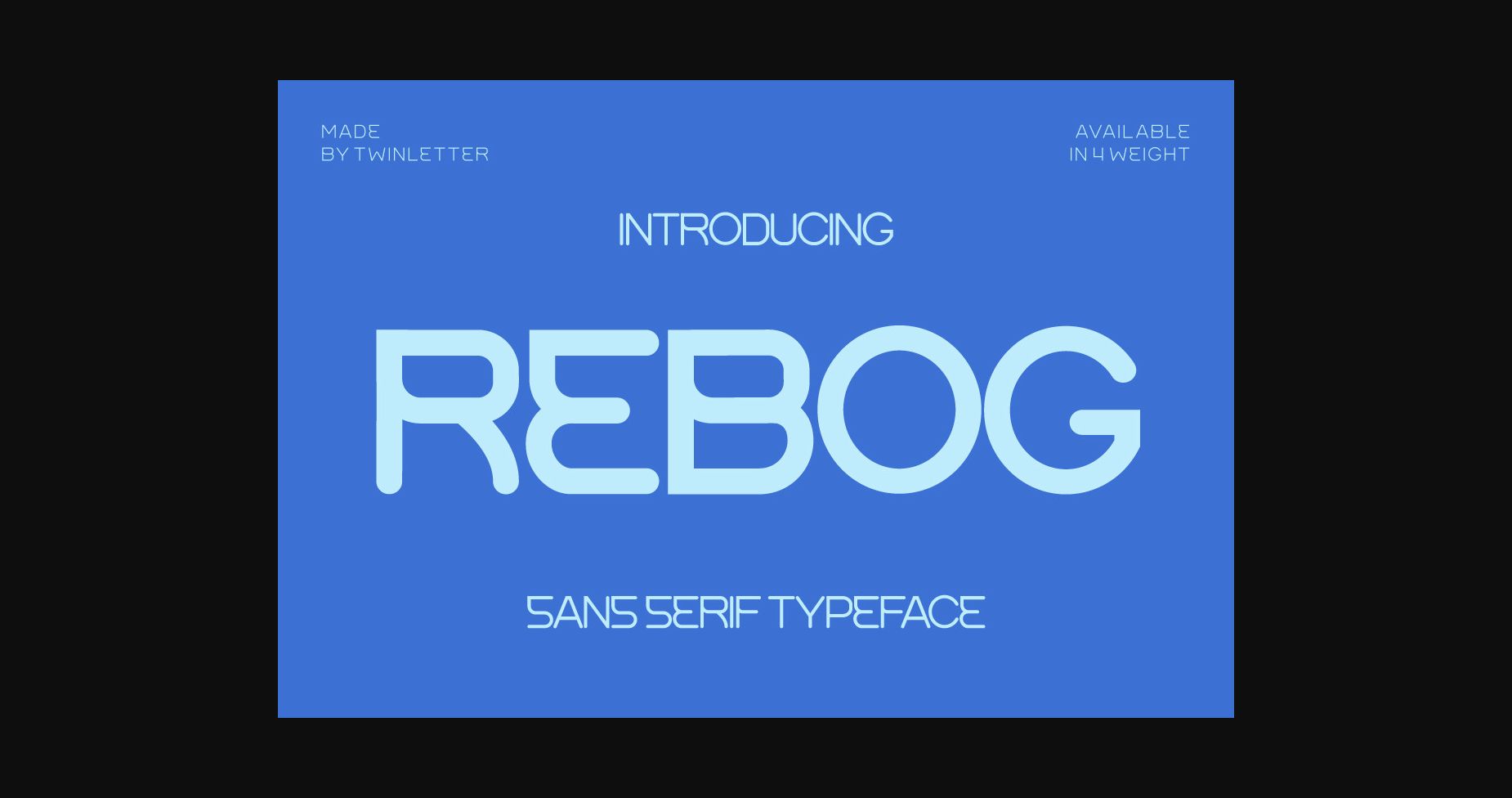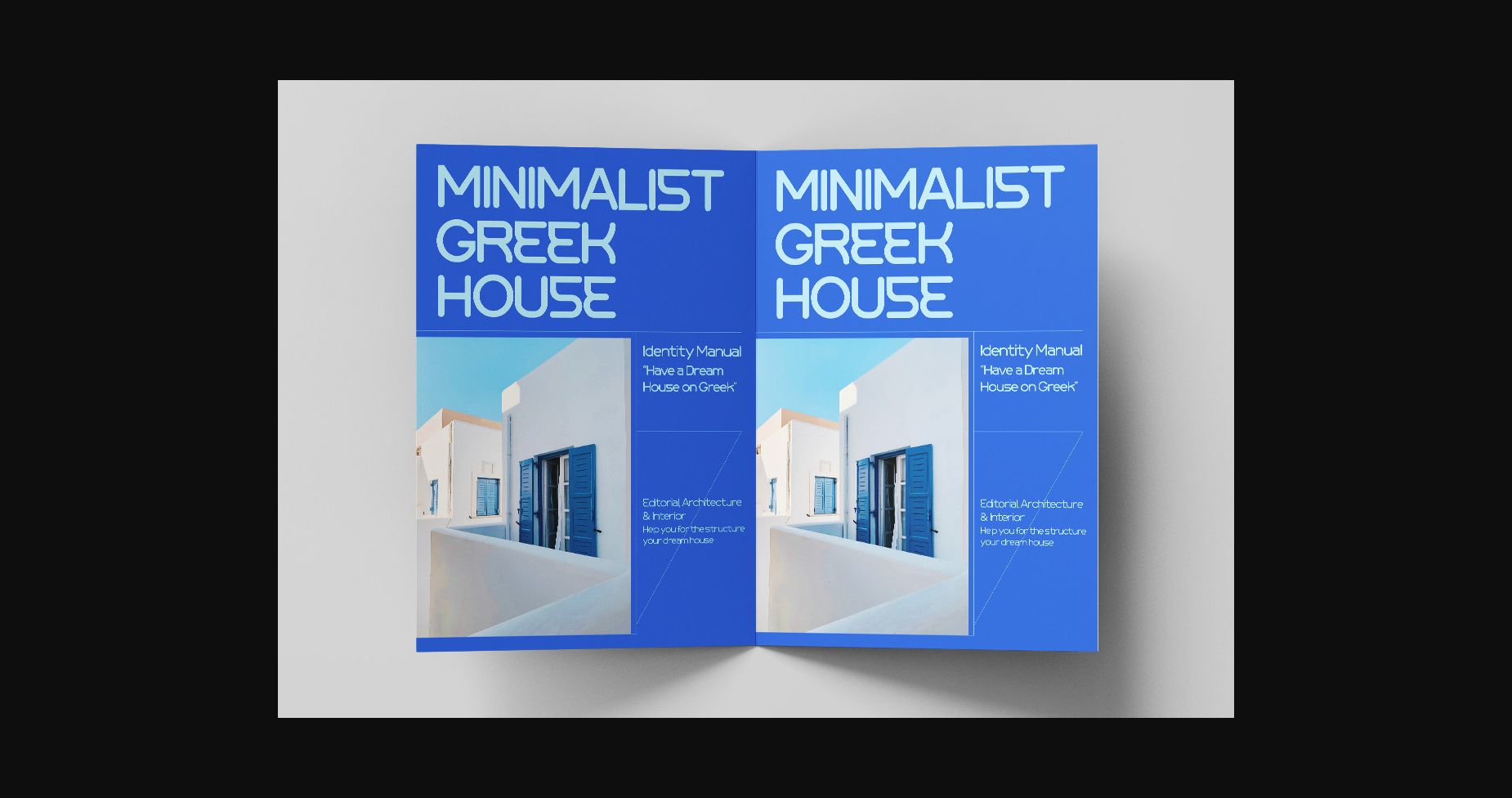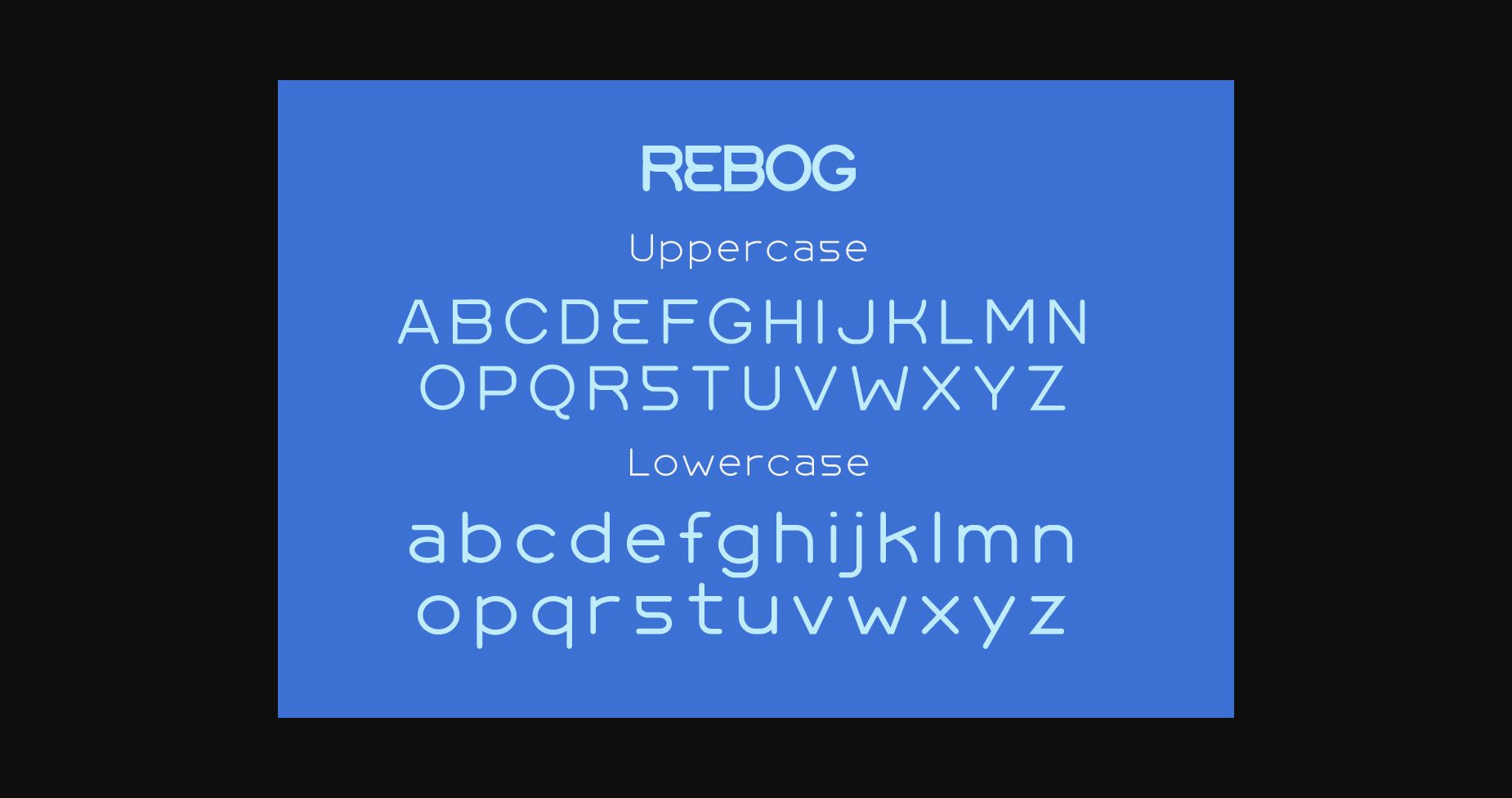
About Rebog Font
Rebog is a sans serif typeface that is ideal for various tasks. Your project will seem distinctive and appealing from the corner of your eye, making it easier for your audience to remember it.
Of course, your various design projects will be perfect and extraordinary if you use this font – because this font is equipped with different character styles for titles, subtitles, and body text.